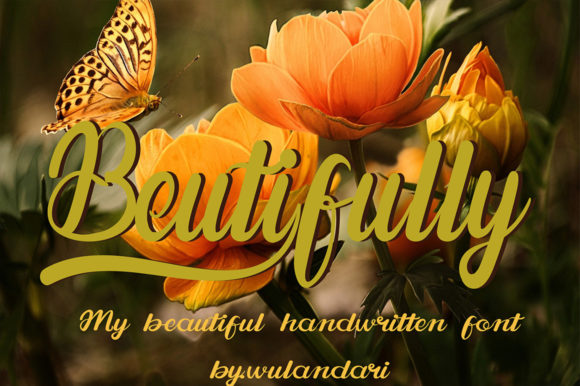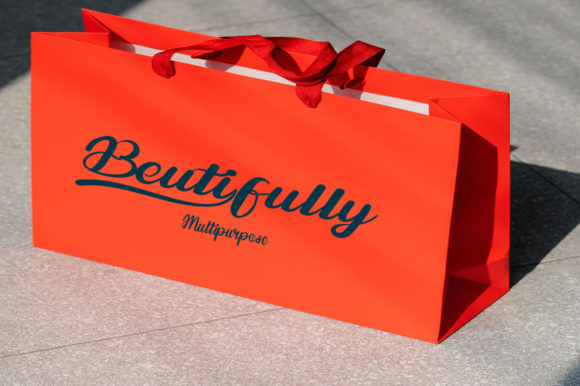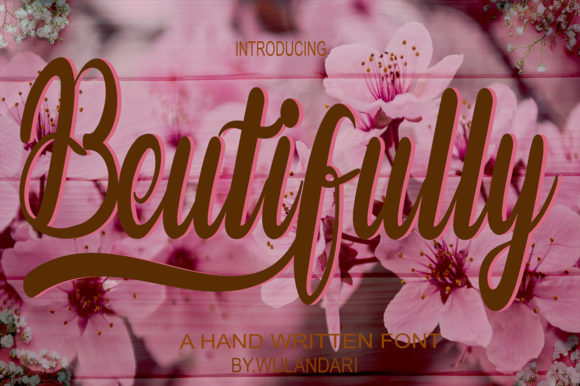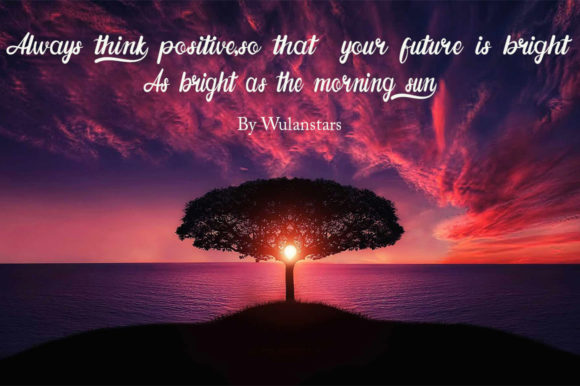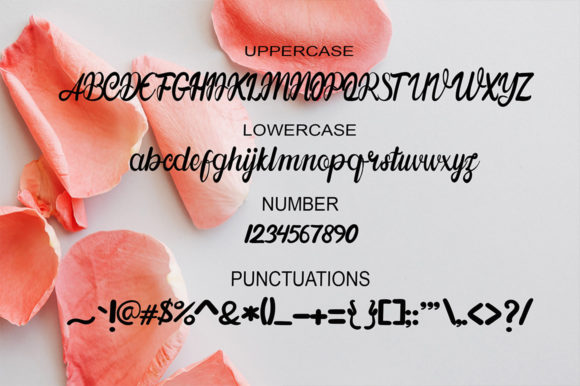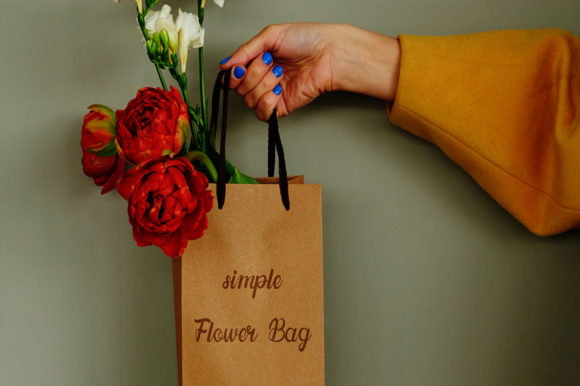
Discovering the Perfect Handwritten Touch
As a designer, have you ever found yourself in a creative rut, struggling to convey the emotions and personality of a brand through a simple font choice? Perhaps you’re searching for that elusive handwritten touch that sets your design apart from the rest. I’ve been there too, and I’m excited to share with you a game-changing font that’s about to become your new best friend.
Meet the Beutifully Font, a flowing and well-balanced handwritten font that’s perfect for creating eye-catching logos, branding, and quotes. This versatile font is a must-have in any designer’s toolkit, offering a range of styles and swashes that will add a touch of elegance to any project. With its PUA encoding, you’ll have easy access to all the glyphs and swashes, giving you complete control over your design.
Beautifully Font Key Features
- Unique Characteristics: This font features a unique blend of modern and classic elements, making it perfect for creating visually striking headlines and titles.
- Kerning and Ligatures: The font includes advanced kerning and ligature pairs, ensuring precise spacing and a professional look in your designs.
Beutifully Font Review
Overall, I think Beutifully Font has a lot to offer, especially for designers who want to add a touch of elegance to their projects. ✨
Here are some of its strengths:
- Beutifully Font has a wide range of styles and weights, making it versatile for various design applications.
- The font is highly customizable, allowing designers to adjust spacing, letter spacing, and other parameters to suit their needs.
- It’s also optimized for digital use, ensuring smooth rendering on various devices and screen sizes.
- Beutifully Font supports multiple languages, making it suitable for global projects.
- The font may not be as comprehensive as some other popular fonts, with fewer alternate characters and ligatures.
- Some users may find the font’s aesthetic to be too ornate or overused, which could lead to a lack of creativity in design.
- Beutifully Font may not be the best choice for projects requiring a bold or sans-serif font style.
Overall, I think Beutifully Font is a solid choice for designers who want to add a touch of sophistication to their projects. While it may have some limitations, its customization options and wide range of styles make it a versatile and reliable font.
Beautifully Font is perfect for:
- Creating visually appealing headings and titles.
- Designing unique and creative typography.
- Adding a touch of elegance to presentations and documents.